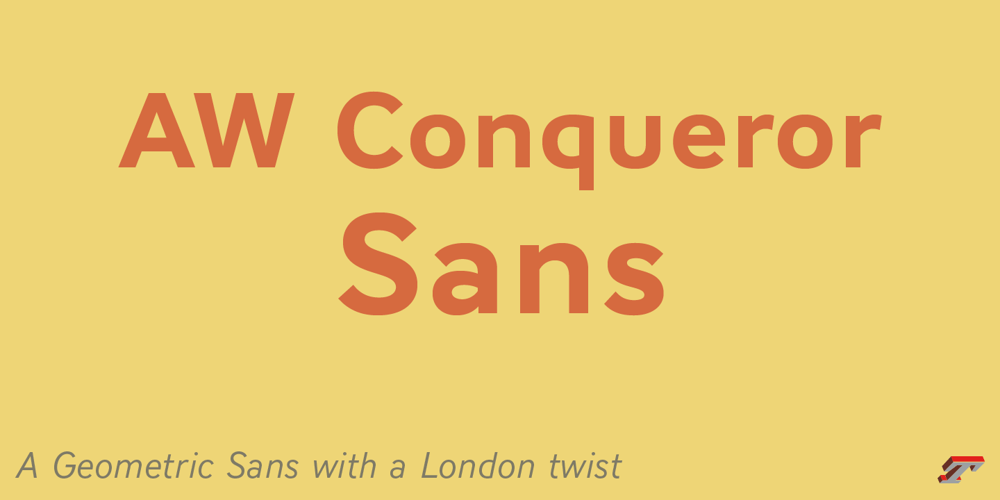
AW Conqueror Std Sans Font Family was designed by Jean François Porchez and published by Typofonderie. AW Conqueror Std Sans contains 6 styles and family package options. AW Conqueror Sans was born out of this desire to fuse geometric and humanistic sans. It remains a typeface fundamentally influenced by both Bauhaus spirit — with its simplified geometric forms — and Jan Tschichold’s attempts to link this modular spirit to Eric Gill’s humanist sans serif. AW Conqueror Sans is a claimed French synthesis of Germanic Modernism and English classical tradition.Spheres of influenceThe core set of capitals are based on the proportions of the Roman capitals like Futura, Erbar, Nobel, Johnston, Gill Sans. During the 1930s, the Futura was a true success. Since then, Monotype offered a geometric version of the Gill Sans, and Linotype added Futura-like variants to WA Dwiggins’ Metro. AW Conqueror Sans is kind of a “fusion” of this approach. The lower case “b, d, p, q” are also directly influenced by Eric Gill’s, while the “y” is influenced by some of Jan Tschichold’s alphabets. In italics, drawn narrower, AW Conqueror Sans reinterprets Gill’s idea: a rigorous italic like a roman but which sometimes reveals some aspects of a Renaissance italic.AW Conqueror Sans and its extensionsAW Conqueror Sans is the initial reference point for an extended family, including AW Conqueror Inline, Slab, Carved, Didot. The potential of these mixed families is powerful. Because AW Conqueror typefaces are based on an identical structure, and compatible proportions.